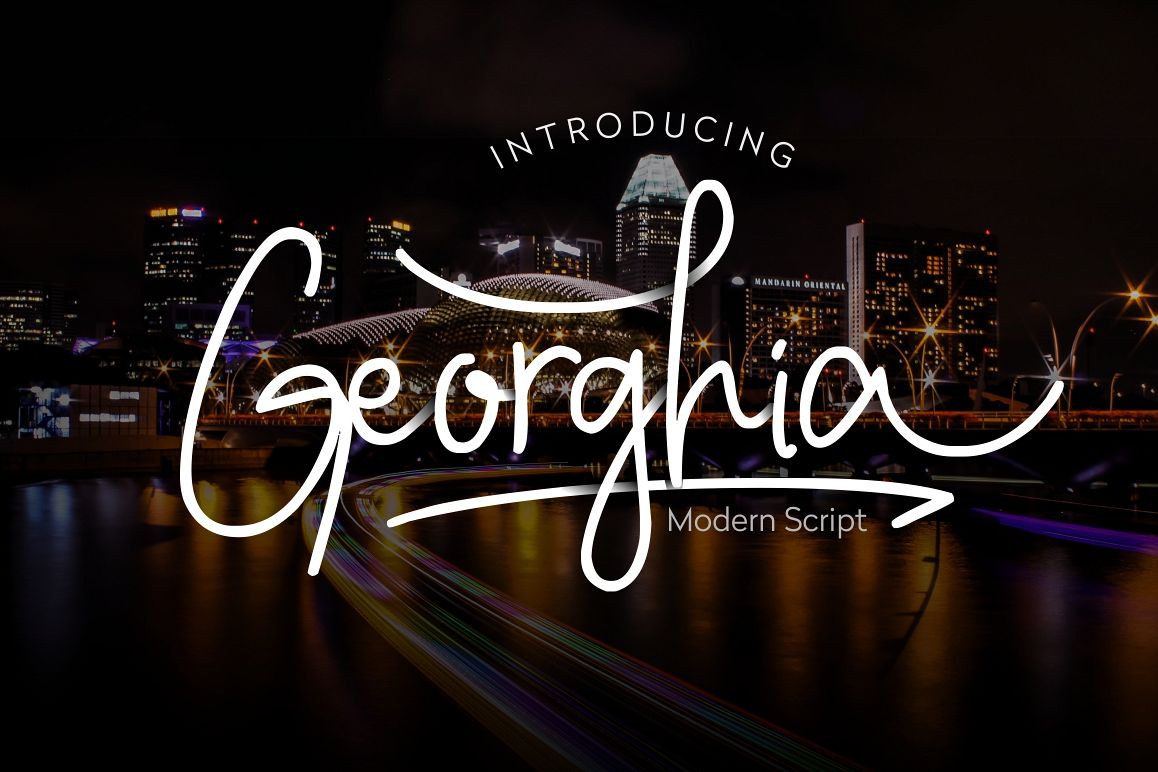
Georghia Modern Script Font
Georghia
Introducing our newest product.
Georghia is a modern and clean handwriting script font.
Georghia is suitable for all your design project needs such as:
logo design, branding, covers, posters, magazines, wedding invitations, greeting cards, quotes and more.